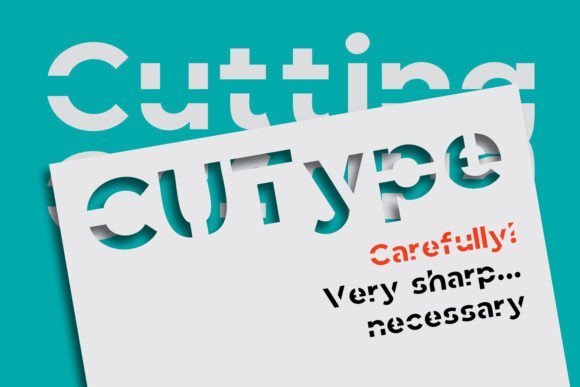
The Perfect Cut: Unlocking the Power of Cutype Font
Have you ever found yourself staring at a blank piece of paper, trying to bring your creative vision to life? You have a design in mind, but the execution seems daunting. You need a font that’s not only visually appealing but also durable enough to withstand the cutting process. This is where Cutype Font comes in – a specially designed font that’s tailored for laser and paper cutting.
With its bold letters and smooth edges, Cutype Font is the perfect choice for designers who want to create intricate designs, signs, stencils, or cards. Its strength allows it to stay together well when cut, making it a valuable asset for any craft project. Whether you’re a seasoned designer or a crafty enthusiast, Cutype Font is sure to elevate your projects and bring your ideas to life with precision and ease.
- Unique Characteristics: The font features a unique blend of geometric and organic elements, creating a distinctive and modern aesthetic.
Designer Review: Cutype Font
As a designer, I’ve had the chance to work with Cutype Font on a recent project, and here’s my honest take.
First off, I love the unique, quirky feel of Cutype Font. It’s perfect for adding a bit of personality to a design without going overboard. The font is highly customizable, with plenty of options for tweaking the weight, width, and even the spacing between characters.
- Quirky, playful feel that adds character to designs
- Highly customizable, with plenty of options for tweaking
- Works well in both digital and print contexts
While I love the look and feel of Cutype Font, there are a few limitations to consider. For one, the font can feel a bit over-ornate at times, which can make it difficult to read in certain contexts. Additionally, the font’s quirkiness can sometimes make it harder to pair with other fonts.
- Can feel over-ornate and difficult to read in certain contexts
- May be challenging to pair with other fonts
All in all, I think Cutype Font is a great addition to any designer’s toolkit. While it may not be the best choice for every project, it’s definitely worth considering for designs where you want to add a bit of personality and flair.
For the best results, use Cutype Font in combination with a sans-serif font for headings and a serif font for body text.
Common use cases for Cutype Font include:
- Designing logos and branding materials
- Creating digital products and user interfaces
- Developing mobile apps and websites